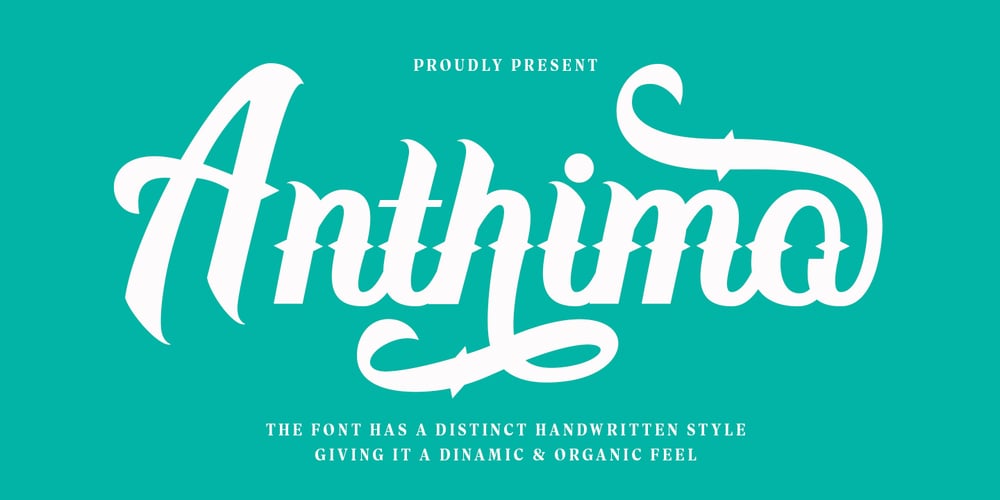
Anthimo Font Family was designed by Muhammad Nasir and published by Aqeela Studio. Anthimo contains 1 styles and family package options. Anthimo is a bold and expressive script font with a strong vintage influence. It features thick, flowing strokes with dramatic flourishes and a touch of gothic flair. The font conveys a sense of energy and personality, making it suitable for designs that demand attention.